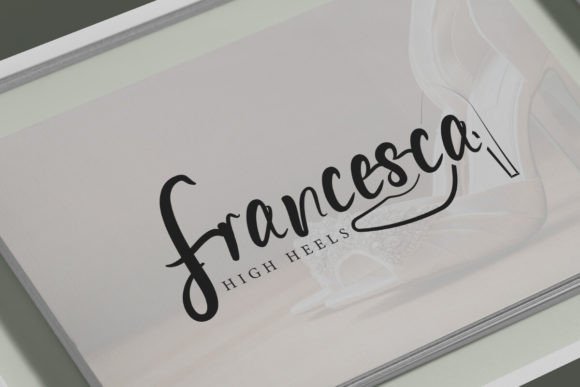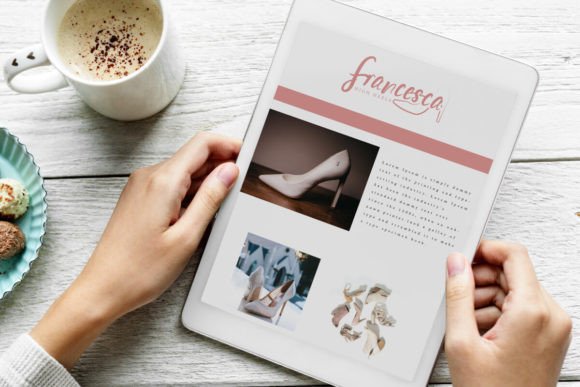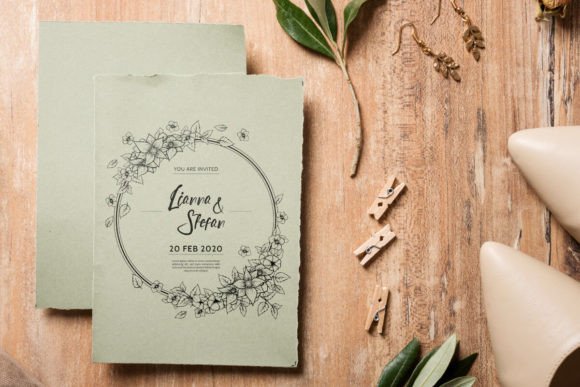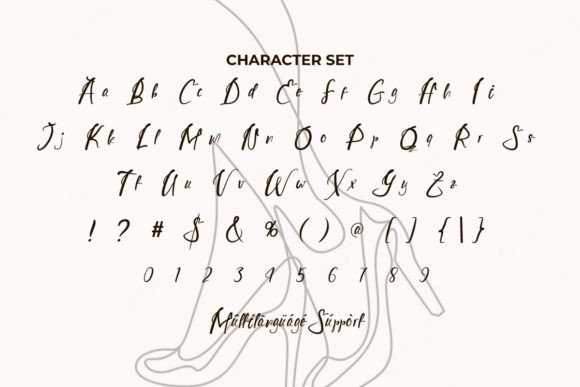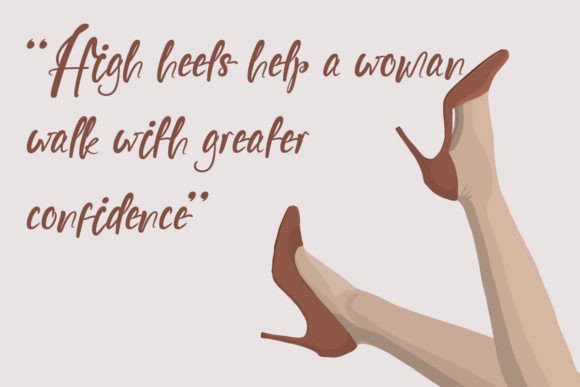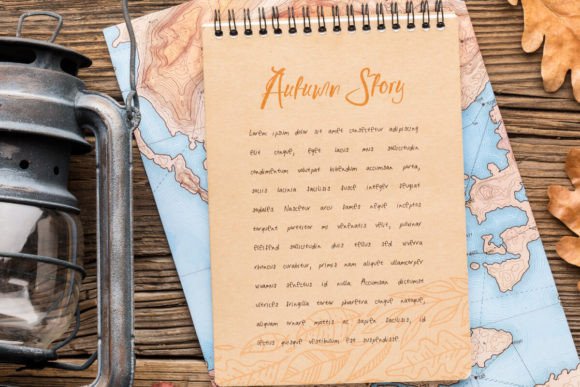
The Perfect Heel: Uncovering the High Heels Font
I’ll never forget the time I was working on a fashion brand’s logo design project, and my client specifically asked for a font that exuded elegance and femininity. I scoured the internet, tried out countless fonts, but nothing seemed to fit the bill. That was until I stumbled upon the High Heels Font. ✨ It was love at first sight! The bold ink and handwritten style instantly captured the essence of high heels – a symbol of sophistication and glamour. In this article, I’ll share my experience with the High Heels Font, its features, and how to make the most of it in your designs.
• ✨ Elegant and sophisticated design, perfect for fashion brands
• ✅ Bold ink gives it a unique, eye-catching appearance
• 💃 Highly versatile, suitable for various design projects, from logos to brochures
• 🖌️ Beautifully crafted, making it a joy to work with
While the High Heels Font is an excellent choice, there are a few things to keep in mind: ⚠️ It may not be the best fit for very small text sizes, as the bold ink can make it appear overwhelming. Additionally, some users might find the font a tad too ornate for certain design projects. 🤔
The Designer Inspiration Behind High Heels Font
The High Heels Font was inspired by the classic symbol of femininity and elegance – high heels. The designer aimed to capture the essence of this iconic fashion staple and translate it into a beautiful, handwritten font. The result is a typography that exudes sophistication and glamour, perfect for designers looking to add a touch of elegance to their work.
Q: What type of designs is the High Heels Font best suited for?
A: The High Heels Font is versatile and can be used for various design projects, including logos, brochures, catalogs, covers, invitations, mockup designs, packaging designs, quotes, stationery, titles, watermarks, and websites.
Q: Is the High Heels Font available in different styles or weights?
A: The High Heels Font is available in a single style, but its bold ink and elegant design make it a great choice for various design projects. You can experiment with different sizes, colors, and effects to achieve the desired look.